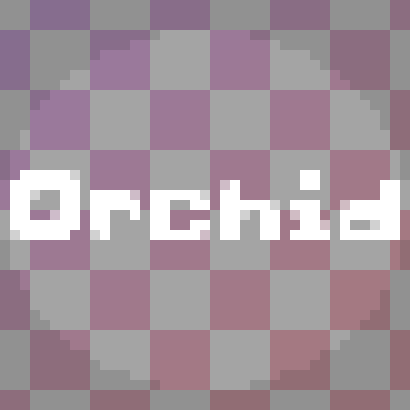
A thick, stylistic, anti-aliased fontpack
All the font's notable characters, including uppercase & lowercase A-Z, all digits, and a few of the special characters
My personal favorite and/or personally stylized characters from the pack, from left to right: Zz 7 $ 2 W
The cover image for the pack, using the font for the image's text